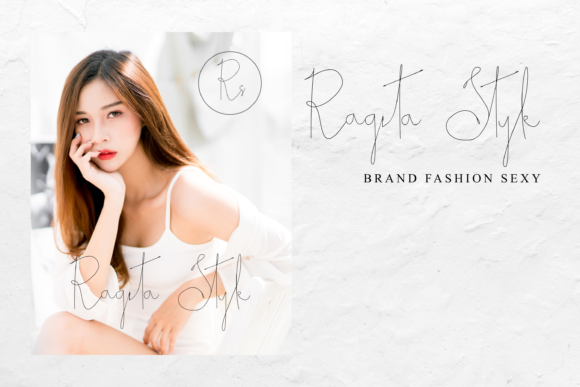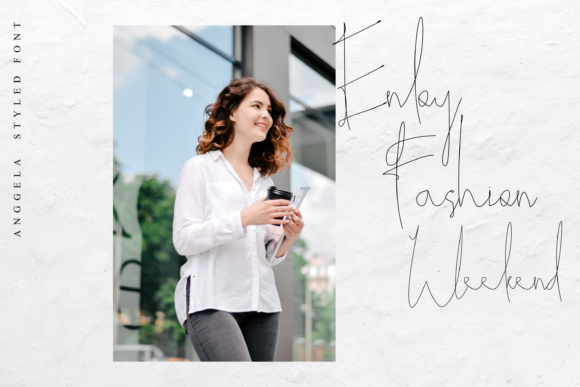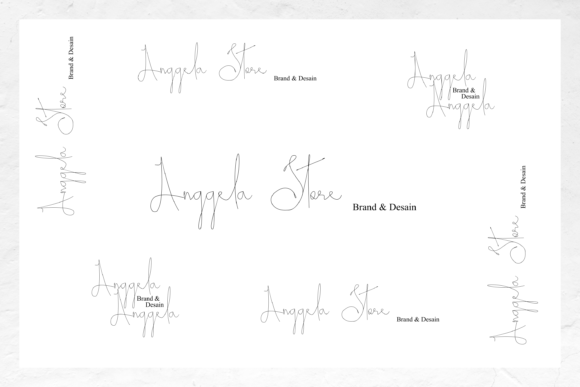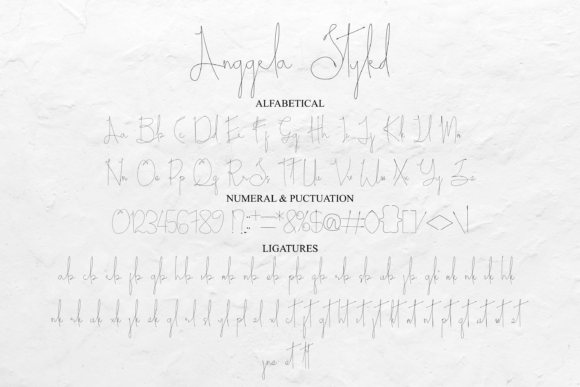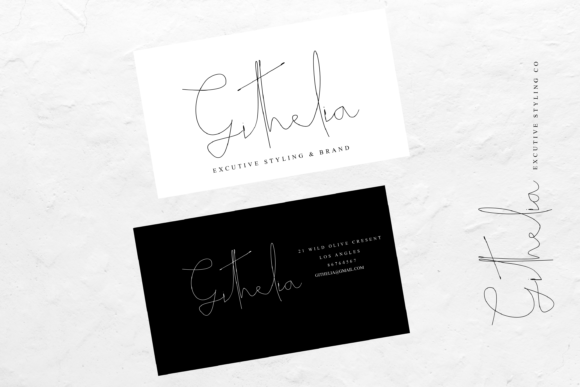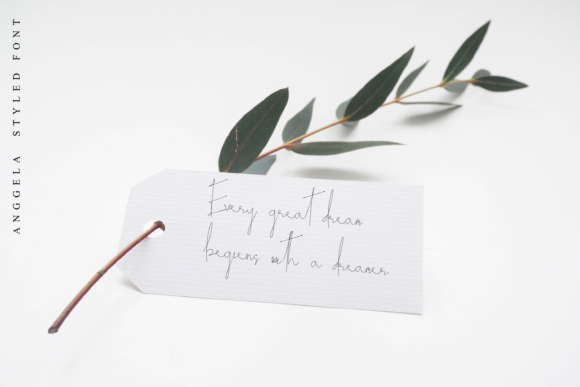
Introducing Anggela Styled Font: The Perfect Modern Calligraphy Font for Your Creative Projects
Are you a designer or crafter looking for a font that adds a touch of elegance and sophistication to your work? Look no further than Anggela Styled Font, a modern calligraphy font that is sure to make your text sparkle. With its sweet and curved lines, this font is perfect for a variety of creative projects, from wedding invitations and branding materials to social media graphics and more.
What is Anggela Styled Font?
Anggela Styled Font is a modern calligraphy font that is designed to add a touch of whimsy and romance to your text. Its unique and elegant lines make it perfect for a variety of design projects, and its sweet and curved lines give it a feminine and delicate feel. Whether you’re looking to create a beautiful wedding invitation, a stunning branding material, or a gorgeous social media graphic, Anggela Styled Font is the perfect choice.
Key Features of Anggela Styled Font
So what makes Anggela Styled Font so special? Here are just a few of its key features:
- Modern Calligraphy Style: Anggela Styled Font is a modern calligraphy font that is designed to be elegant and sophisticated.
- Sweet and Curved Lines: The font features sweet and curved lines that give it a feminine and delicate feel.
- Perfect for Creative Projects: Anggela Styled Font is perfect for a variety of creative projects, from wedding invitations and branding materials to social media graphics and more.
- Easy to Read: Despite its elegant and cursive lines, Anggela Styled Font is easy to read and understand, making it perfect for body text and headlines.
How to Use Anggela Styled Font
Anggela Styled Font is a versatile font that can be used in a variety of creative projects. Here are just a few ideas to get you started:
- Wedding Invitations: Use Anggela Styled Font to create beautiful and elegant wedding invitations that set the tone for your special day.
- Branding Materials: Use the font to create stunning branding materials, such as logos, business cards, and letterheads.
- Social Media Graphics: Use Anggela Styled Font to create gorgeous social media graphics that stand out from the crowd.
- Signage and Posters: Use the font to create eye-catching signage and posters that grab attention.
Why Choose Anggela Styled Font?
So why choose Anggela Styled Font over other fonts? Here are just a few reasons:
- Unique and Elegant: Anggela Styled Font is a unique and elegant font that adds a touch of sophistication to your text.
- High-Quality Design: The font is designed to be high-quality and professional, making it perfect for commercial and personal projects.
In conclusion, Anggela Styled Font is a modern calligraphy font that is perfect for designers and crafters looking to add a touch of elegance and sophistication to their work. With its sweet and curved lines, this font is sure to make your text sparkle. Whether you’re creating wedding invitations, branding materials, social media graphics, or more, Anggela Styled Font is the perfect choice. So why wait? Download Anggela Styled Font today and start creating stunning designs that impress!
Anggela Styled Font – A modern calligraphy font with a sweet touch and curves to make your text really sparkle!